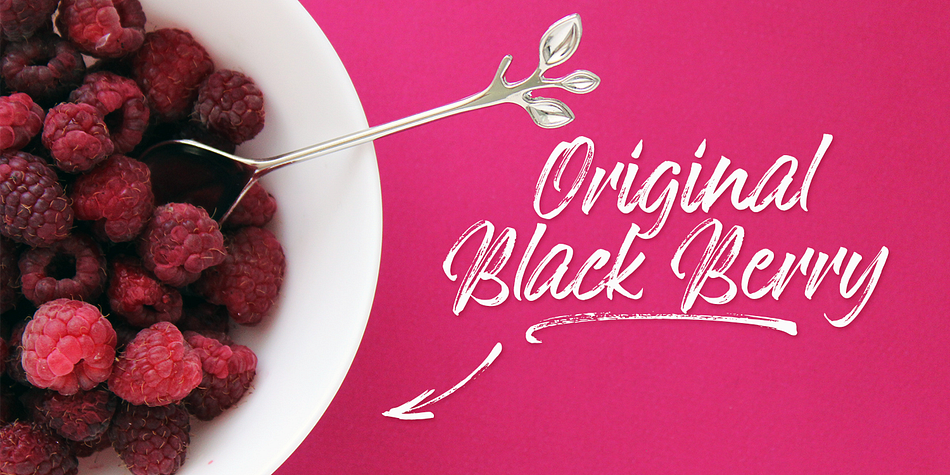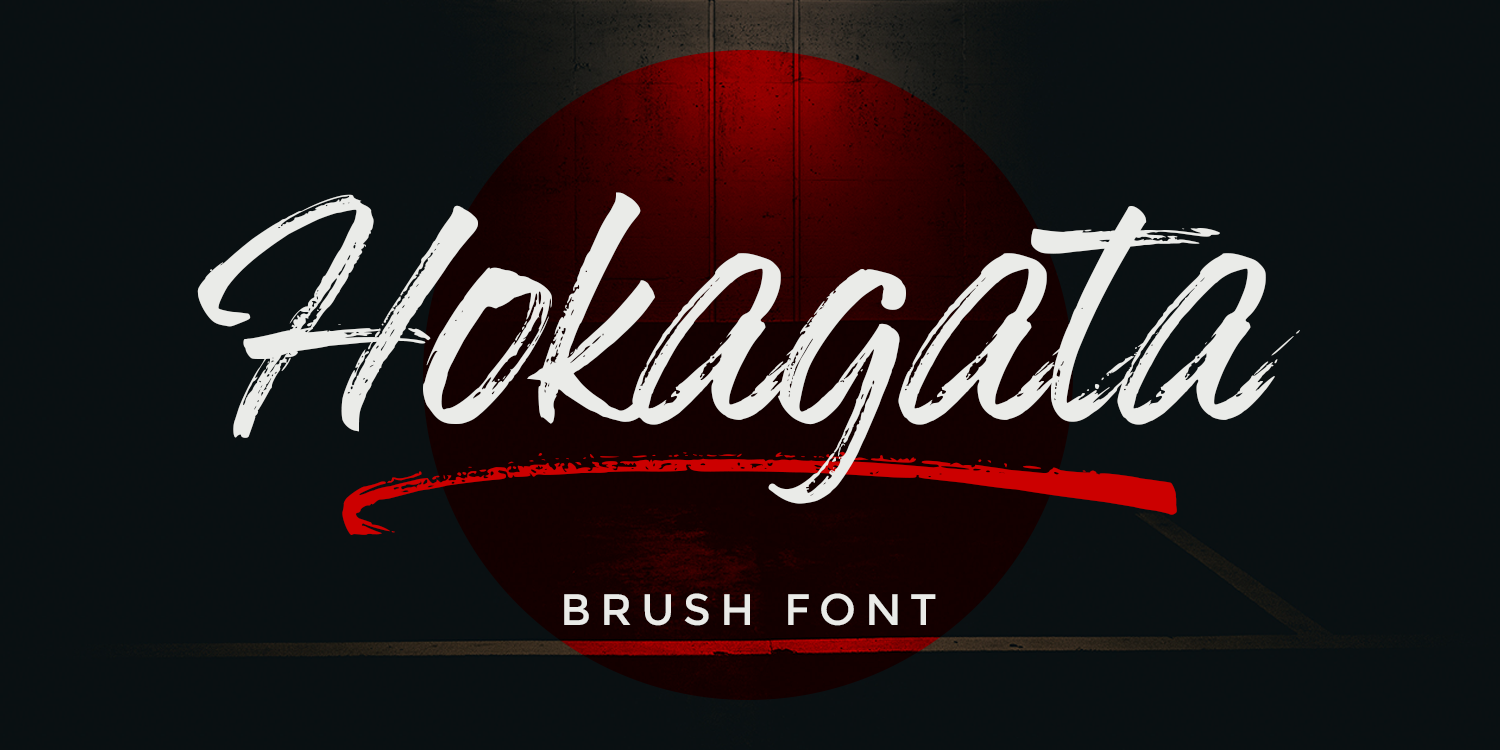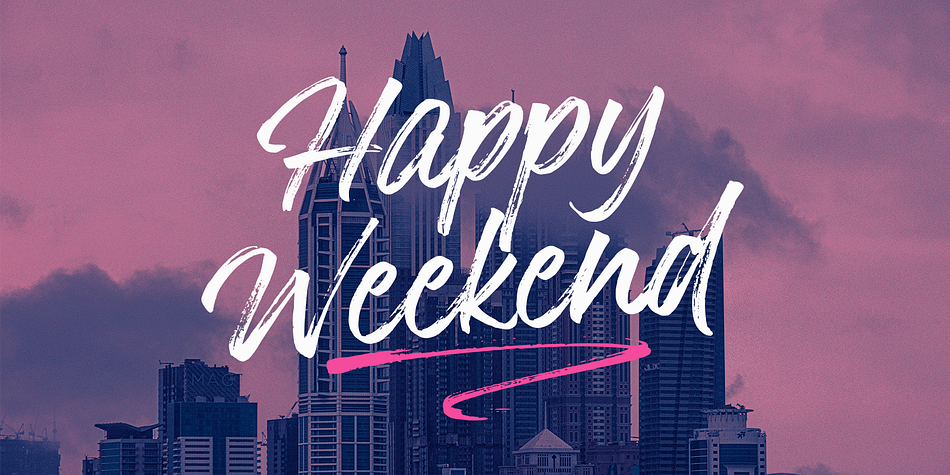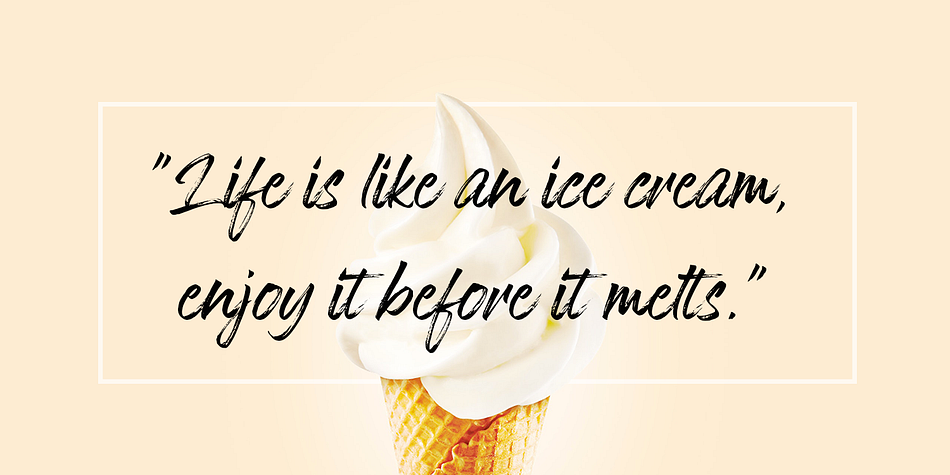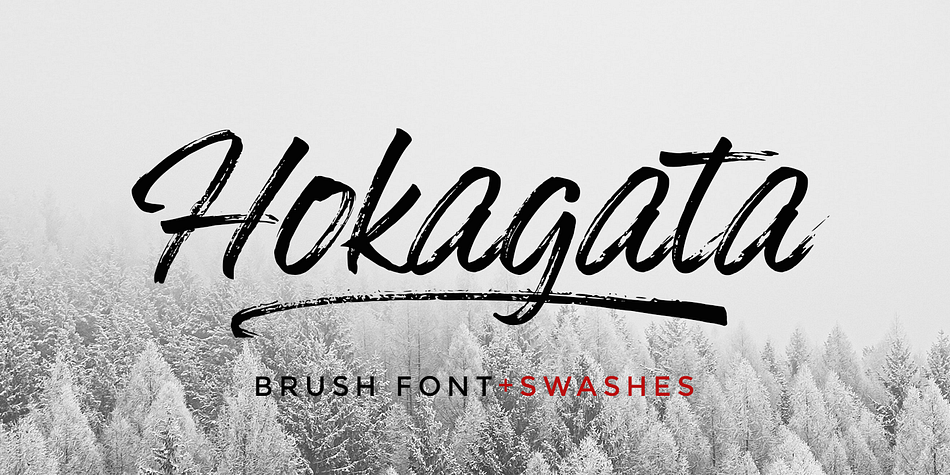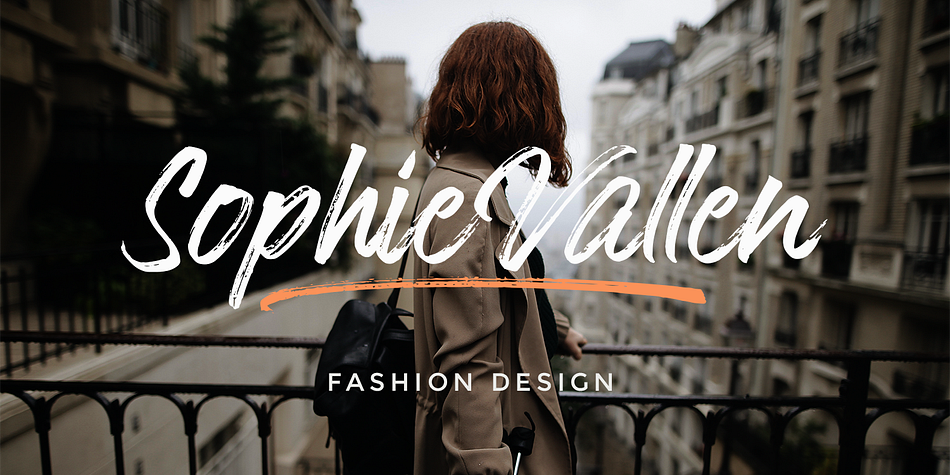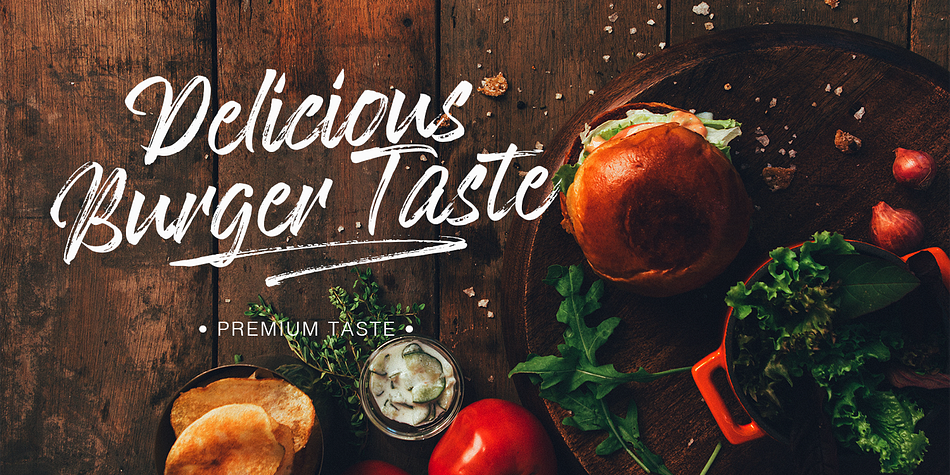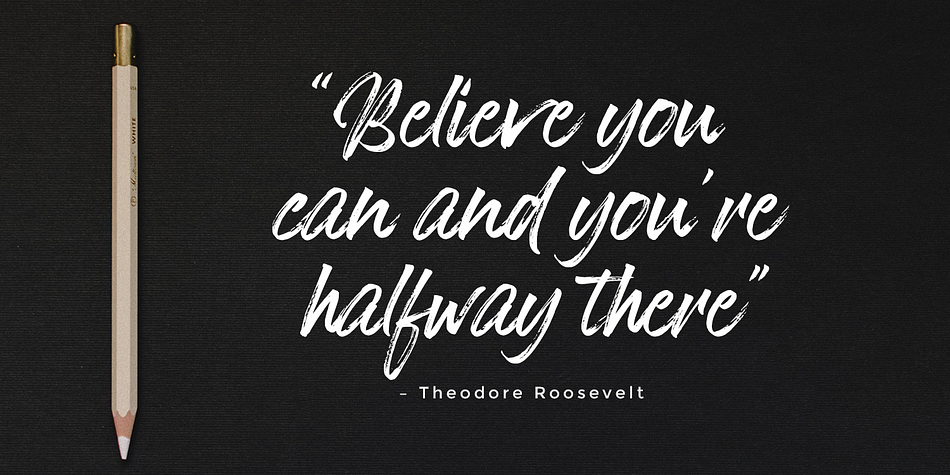
Hokagata Brush
Hokagata Brush is a brush script font family. This typeface has two styles and was published by Fargun Studio.
Introducing Hokagata Brush Font!!
Handwritten font with quick dry strokes and a signature style. perfect for branding projects, home ware designs, product packaging or simply as a stylish text overlay to any background image or posters.
Alternates !
Hokagata Brush -A handwritten script font containing upper & lowercase characters, numerals and a large range of punctuation.
Hokagata Swash -A set of 64 hand-drawn swashes, with cool touch to underline you’re Hokagata text.